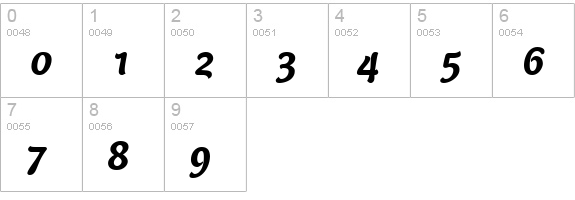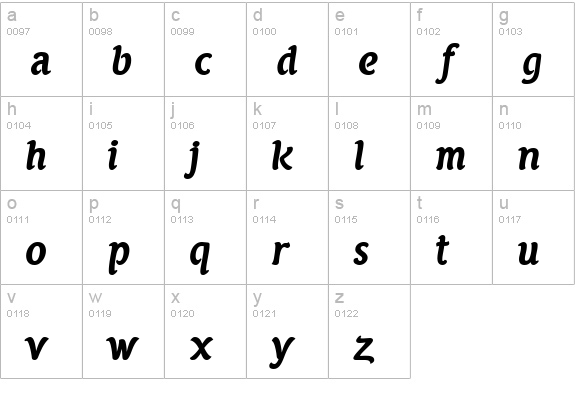
PFArmonia-BoldItalic Font Details
PFArmonia-BoldItalic is a striking and elegant typeface that exudes confidence and sophistication. Its bold yet graceful design is perfect for making a statement in any project, whether it be print or digital. The italicized letters add a touch of flair and style, making this font a versatile choice for a wide range of design applications. What sets PFArmonia-BoldItalic apart is that it is not only visually appealing but also free to download. Yes, you read that right - this premium font is available for free at FontsMarket.com, making it accessible to designers, artists, and creatives of all kinds. So go ahead and elevate your designs with the bold and italic beauty of PFArmonia-BoldItalic - the perfect blend of style and accessibility.